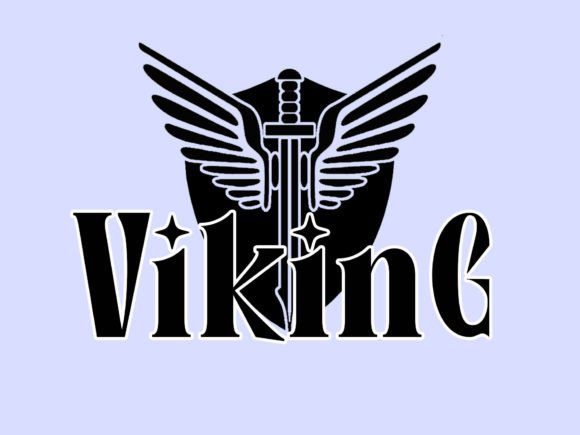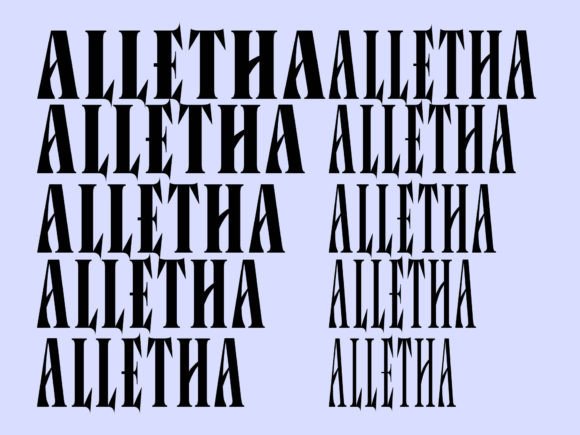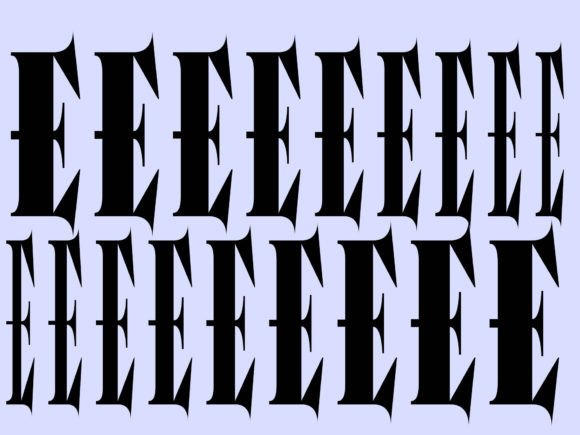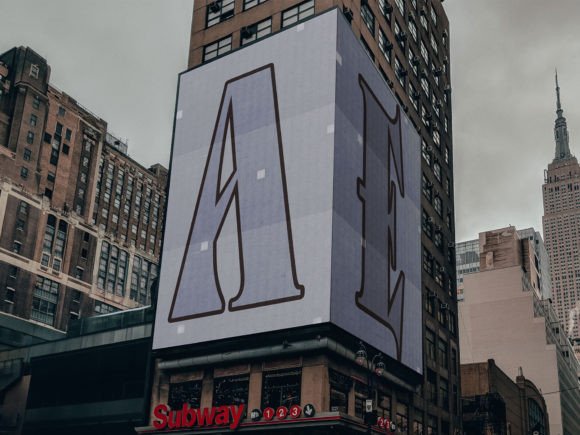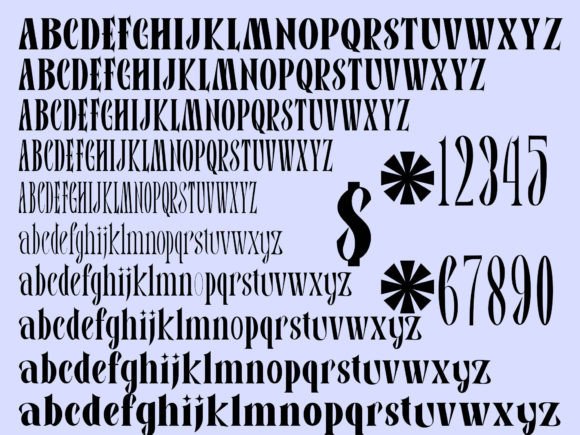
Introducing Alletha Font: The Epitome of Elegance and Modernity
In the realm of typography, few fonts manage to strike a balance between elegance and modernity. Alletha Font is one such remarkable typeface that seamlessly combines classic serif elements with a contemporary twist. This exquisite font is designed to cater to a wide array of creative needs, making it an indispensable asset for designers and crafters alike.
Unveiling the Characteristics of Alletha Font
Alletha Font boasts an elegant serif design that exudes sophistication and refinement. Its classy and modern style ensures that it remains versatile, suitable for various applications ranging from traditional branding projects to innovative digital designs. The font’s high legibility is one of its standout features, making it perfect for projects where clarity and readability are paramount.
One of the key advantages of Alletha Font is its incredible versatility. It can be employed across a multitude of projects, including:
- Branding Projects: Establish your brand’s identity with a font that communicates elegance and professionalism.
- Logos: Create memorable logos that stand out with the unique blend of classic and modern styles.
- Wedding Designs: Add a touch of sophistication to wedding invitations, decor, and related materials.
- Social Media Posts: Elevate your social media presence with visually appealing posts that capture attention.
- Advertisements: Make your advertisements more compelling with a font that combines aesthetic appeal and readability.
- Product Packaging: Enhance your product packaging with a design that reflects luxury and quality.
- Product Designs: Incorporate Alletha Font into your product designs for an added layer of sophistication.
- Labels: Create distinctive labels that are both informative and visually appealing.
- Photography: Use Alletha Font for watermarks or captions in your photography projects to add an elegant touch.
- Invitations: Whether it’s a wedding, birthday, or any other celebration, Alletha Font can make your invitations truly special.
- Stationery: Transform your stationery into elegant and modern pieces that leave a lasting impression.
Why Choose Alletha Font?
Choosing Alletha Font for your projects comes with numerous benefits:
- Elegance and Modernity: A perfect blend that ensures your projects stand out.
- High Legibility: Ensures your message is conveyed clearly and effectively.
- Versatility: Suitable for a wide range of projects, offering flexibility and convenience.
- Professionalism: Elevates your project’s aesthetic appeal, making it more professional.
Tips for Using Alletha Font Effectively
To maximize the potential of Alletha Font, consider the following tips:
- Pair with Complementary Fonts: When combining Alletha Font with other fonts, choose those that complement its elegance and modernity.
- Adjust Font Sizes: Play with different font sizes to create visual hierarchy and emphasize key points.
- Experiment with Colors: While Alletha Font looks stunning in black and dark colors, don’t hesitate to experiment with other hues to match your project’s theme.
- Maintain Readability: Ensure that your text remains readable, especially when using Alletha Font for body text or lengthy content.
Alletha Font is a remarkable addition to any designer’s toolkit. Its elegant serif design, combined with a modern twist, makes it an ideal choice for a plethora of projects. With its high legibility and versatility, Alletha Font is poised to become your go-to typeface for creating visually stunning and effective designs. Whether you’re working on branding projects, wedding designs, or digital content, Alletha Font is sure to elevate your creations to new heights of sophistication and professionalism.